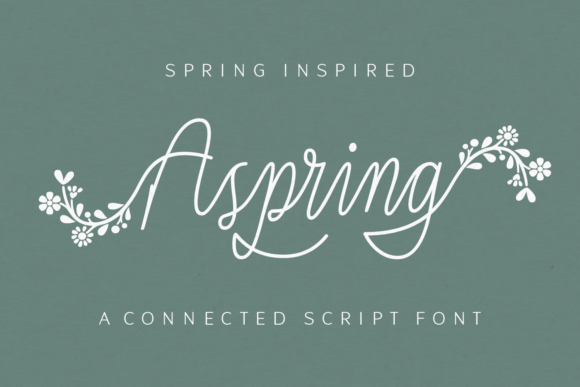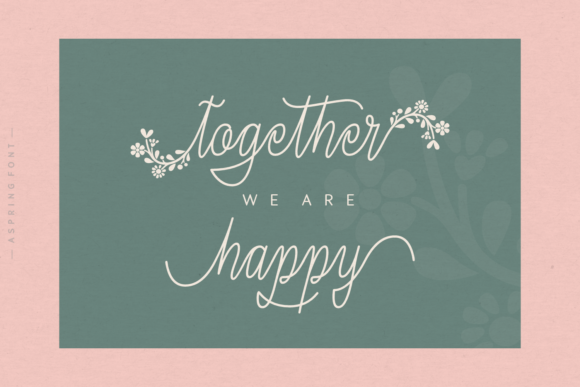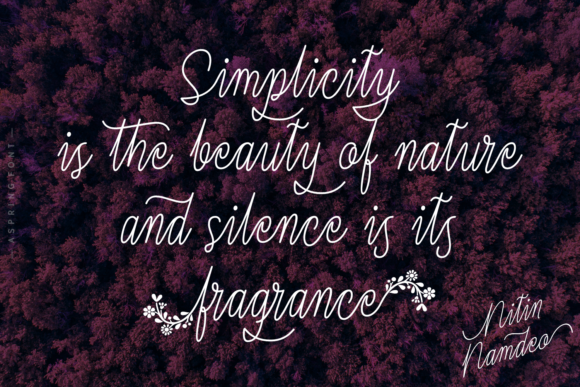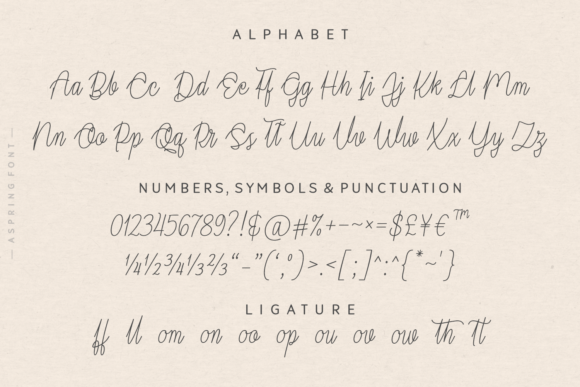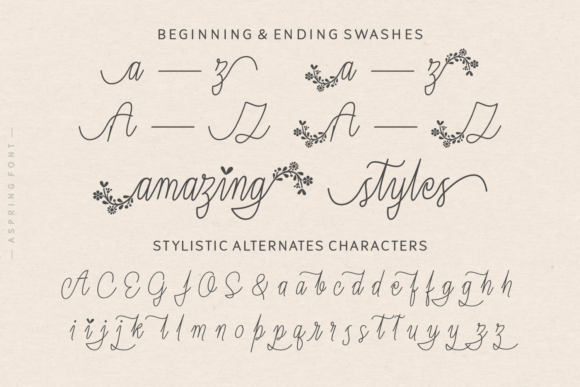
About Aspring Font
Aspring presents itself as a delightful connected script font, inspired by the freshness of spring. With a unique touch, this typeface introduces gorgeous beginning and ending swashes adorned with intricate floral details, making it a must-have for your design collection. Aspring is not just a font; it’s a spring-inspired design element that adds a one-of-a-kind touch to your creative projects.
The font’s connectivity and flowing script capture the essence of spring, making it an excellent choice for a variety of applications. Whether you’re working on wedding invitations, greeting cards, Easter decorations, wall art, book covers, personal branding, quotes, or flower shop logos, Aspring brings a touch of freshness and uniqueness to your designs.
Aspring’s distinctive beginning and ending swashes with floral details set it apart, making it an ideal choice for projects that demand a special and captivating touch. Its versatility shines through as it seamlessly integrates into various design contexts, adding a sense of elegance and charm.
For wedding invitations, Aspring adds a romantic and whimsical flair, setting the tone for a memorable celebration. Greeting cards benefit from the font’s spring-inspired details, evoking a sense of joy and renewal. Easter decorations and wall art come to life with Aspring’s fresh and vibrant script, creating an atmosphere of seasonal celebration.
Book covers and personal branding projects are enhanced by the font’s unique and artistic character, setting your designs apart from the ordinary. Quotes gain a touch of elegance, and flower shop logos bloom with creativity when adorned with Aspring’s distinctive script.
In conclusion, Aspring is not just a font; it’s a springtime design companion that breathes life into your creative projects. Its connected script, adorned with floral swashes, adds a unique touch to a wide array of applications. Embrace the freshness and charm of spring with Aspring, turning your designs into captivating works of art across various creative endeavors.